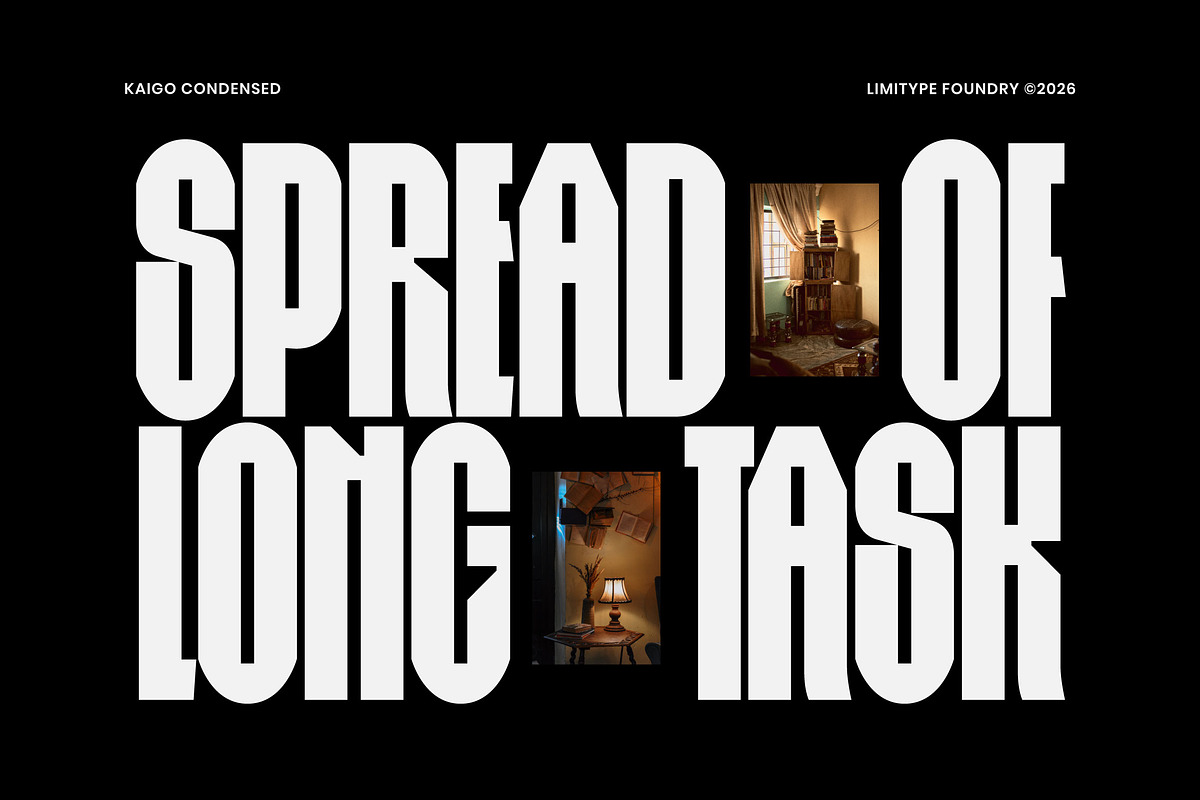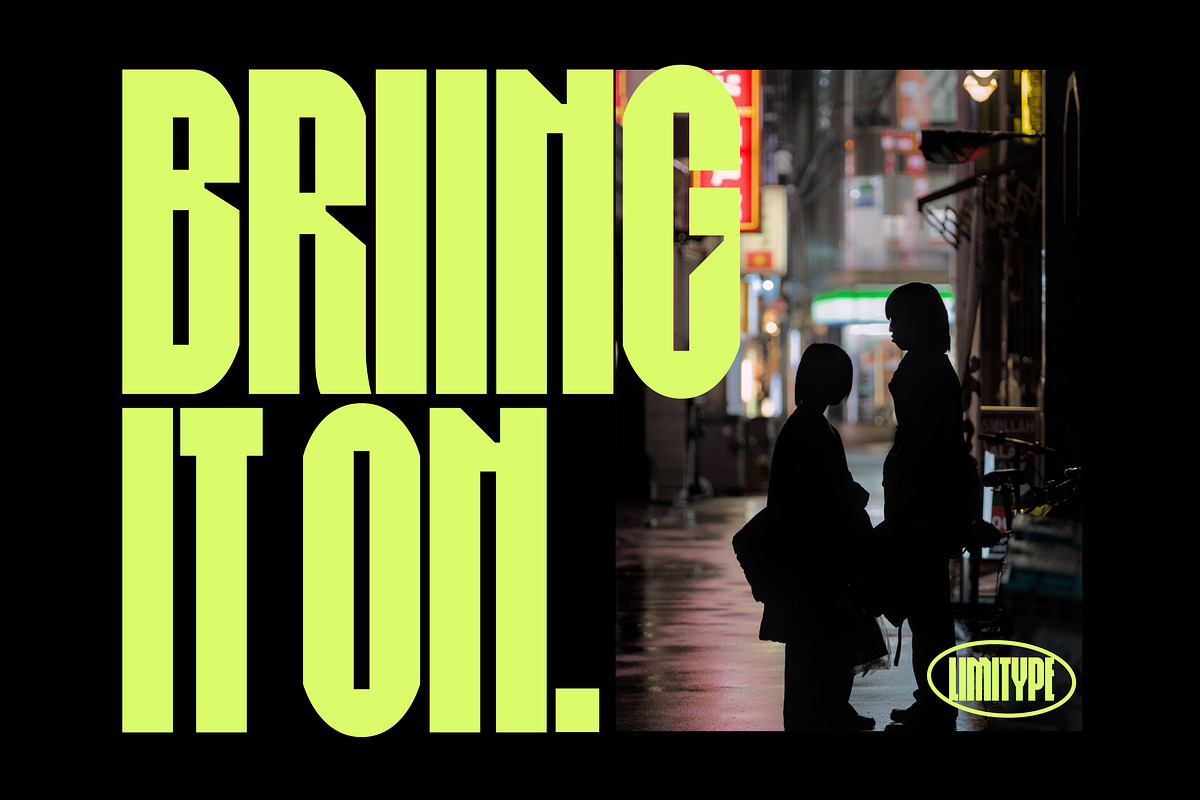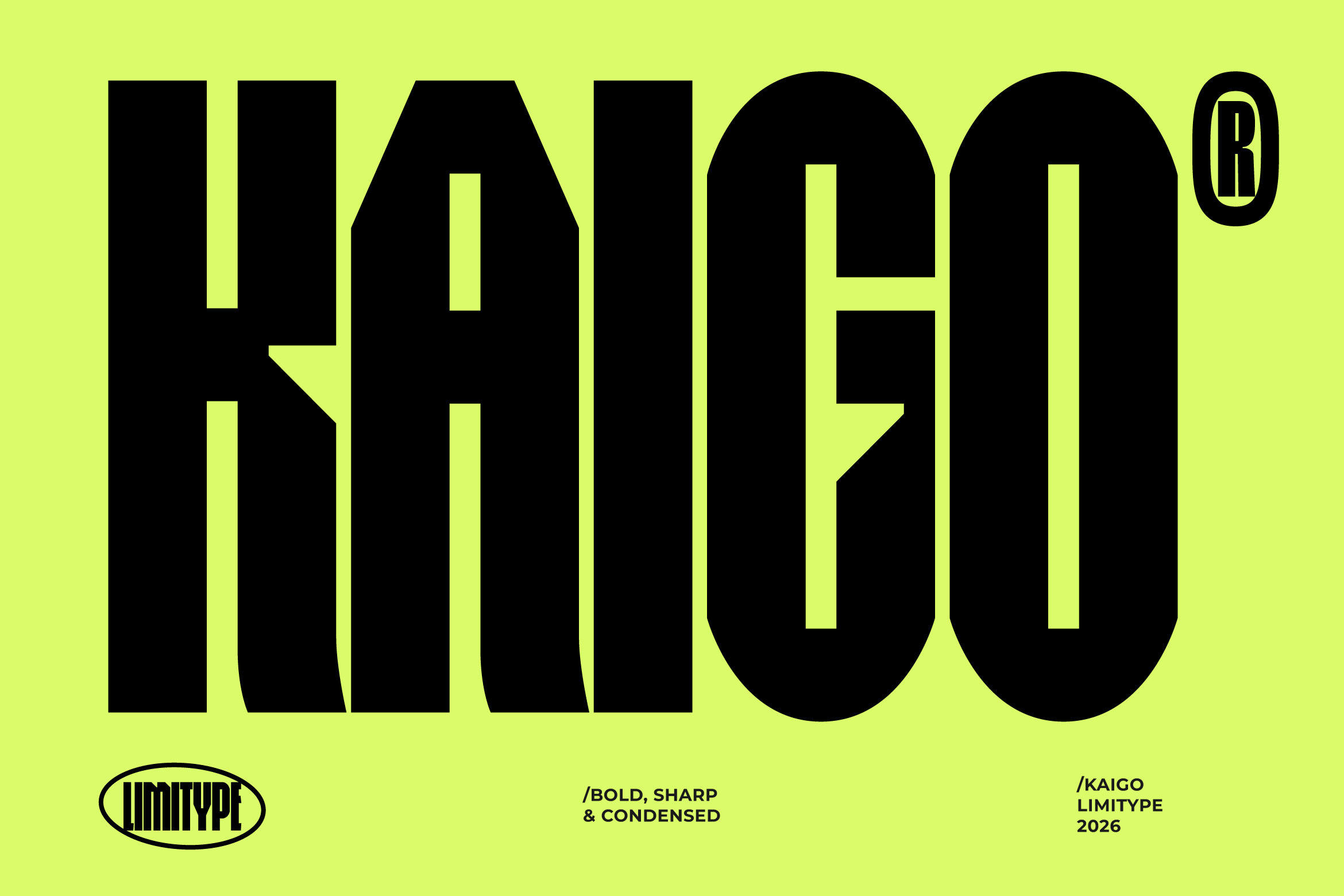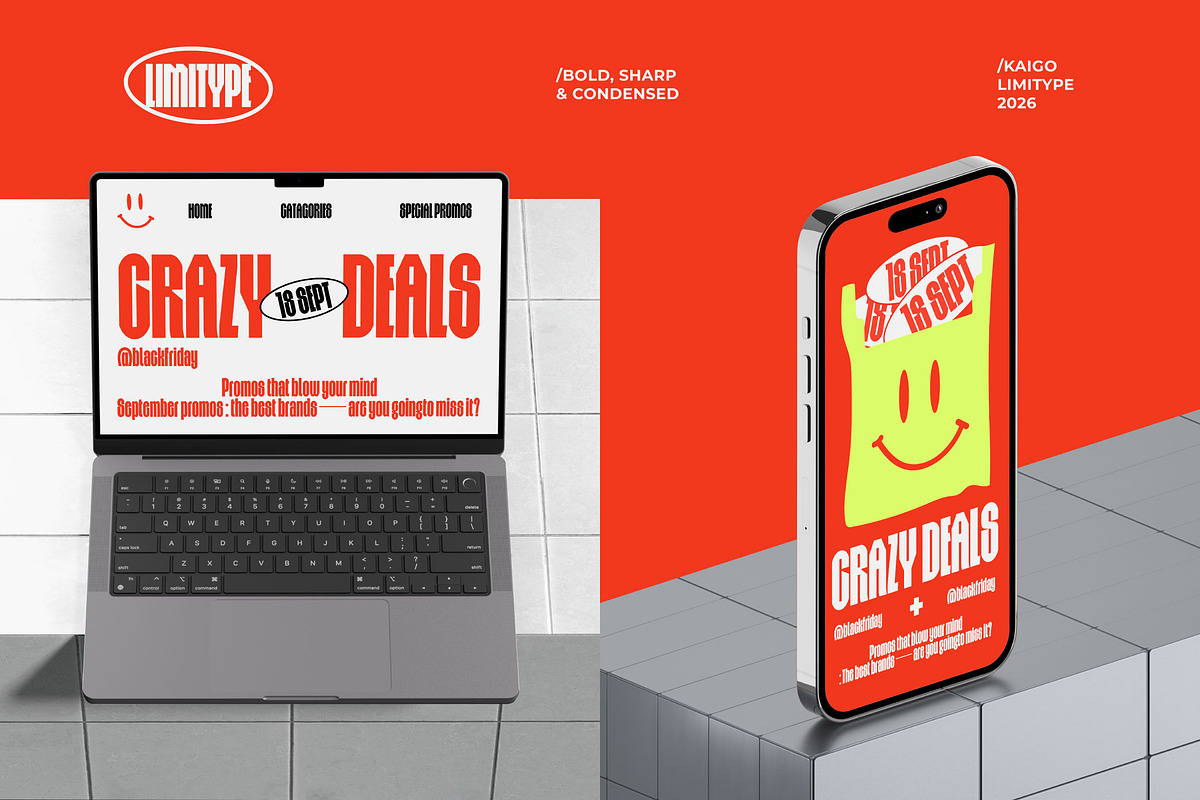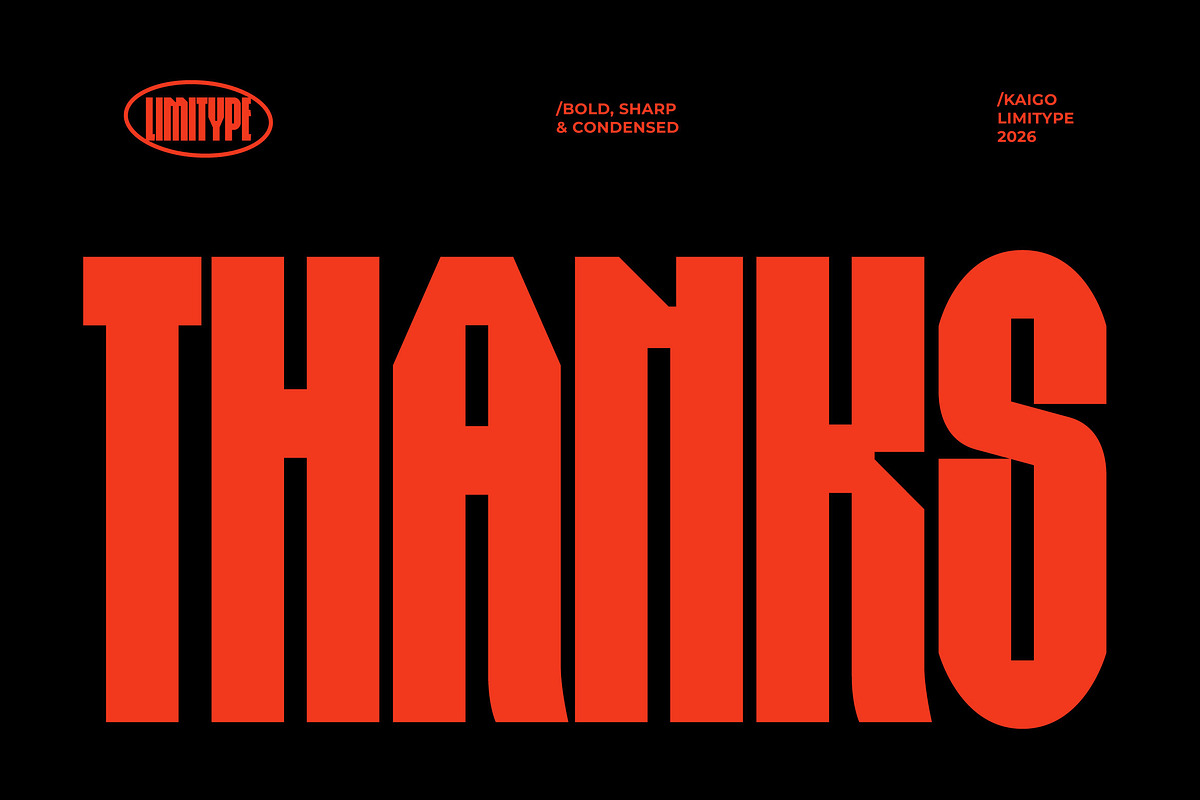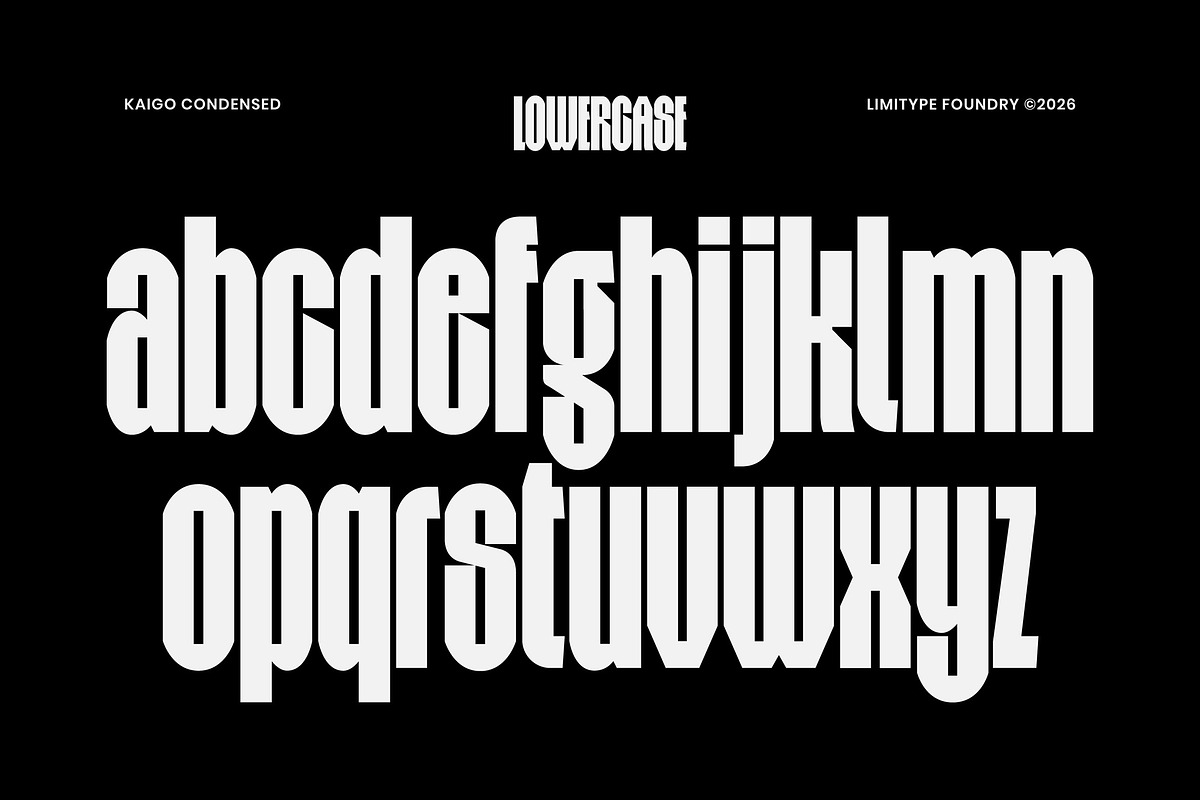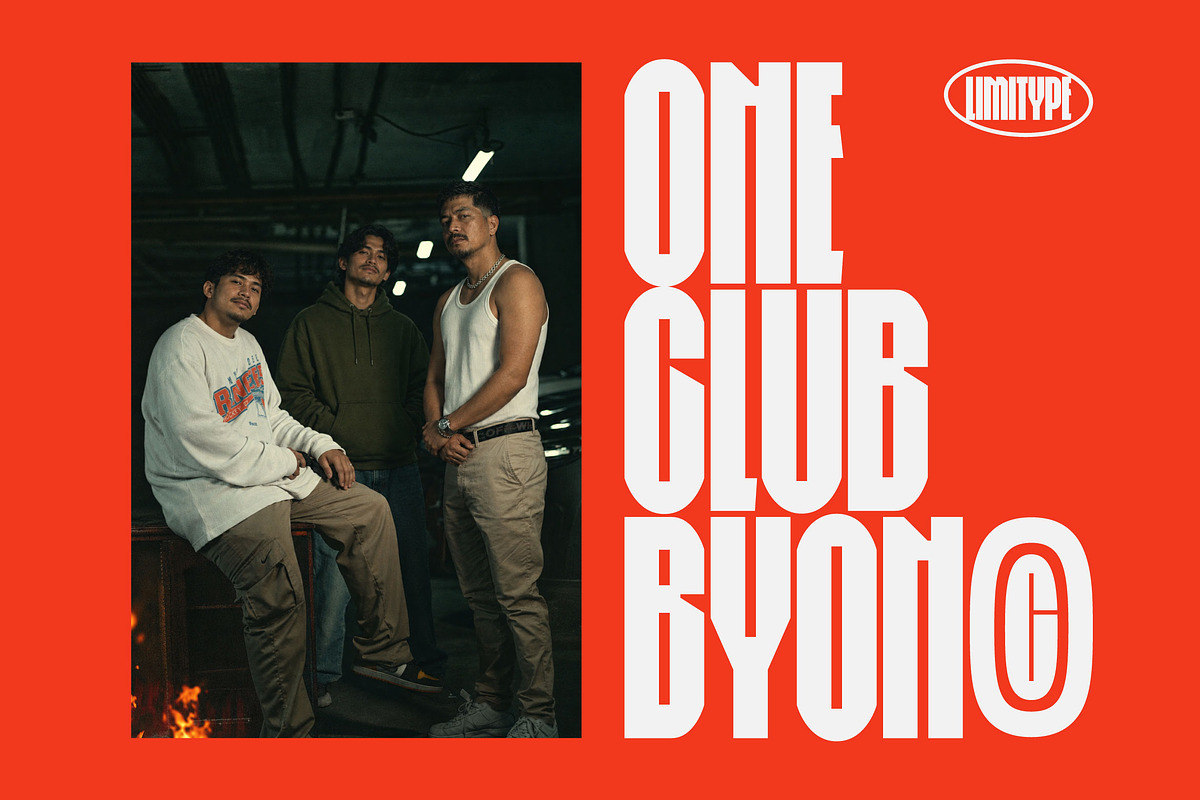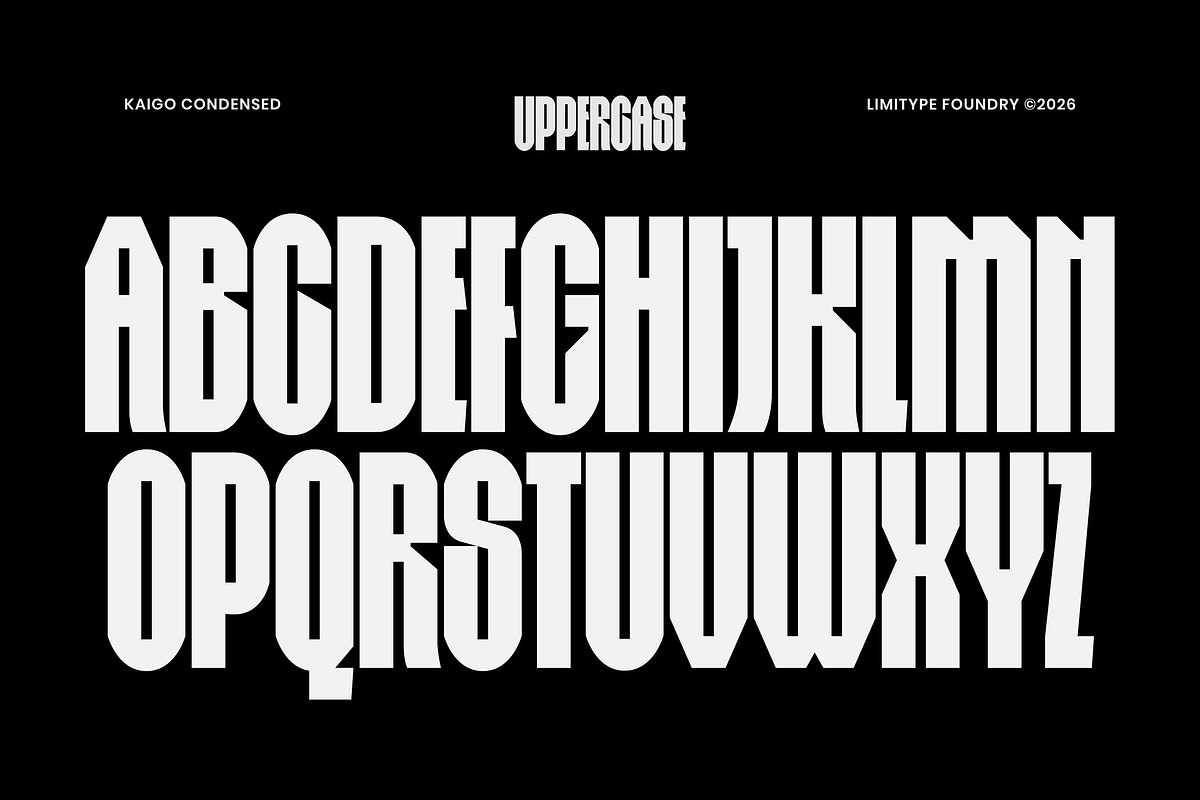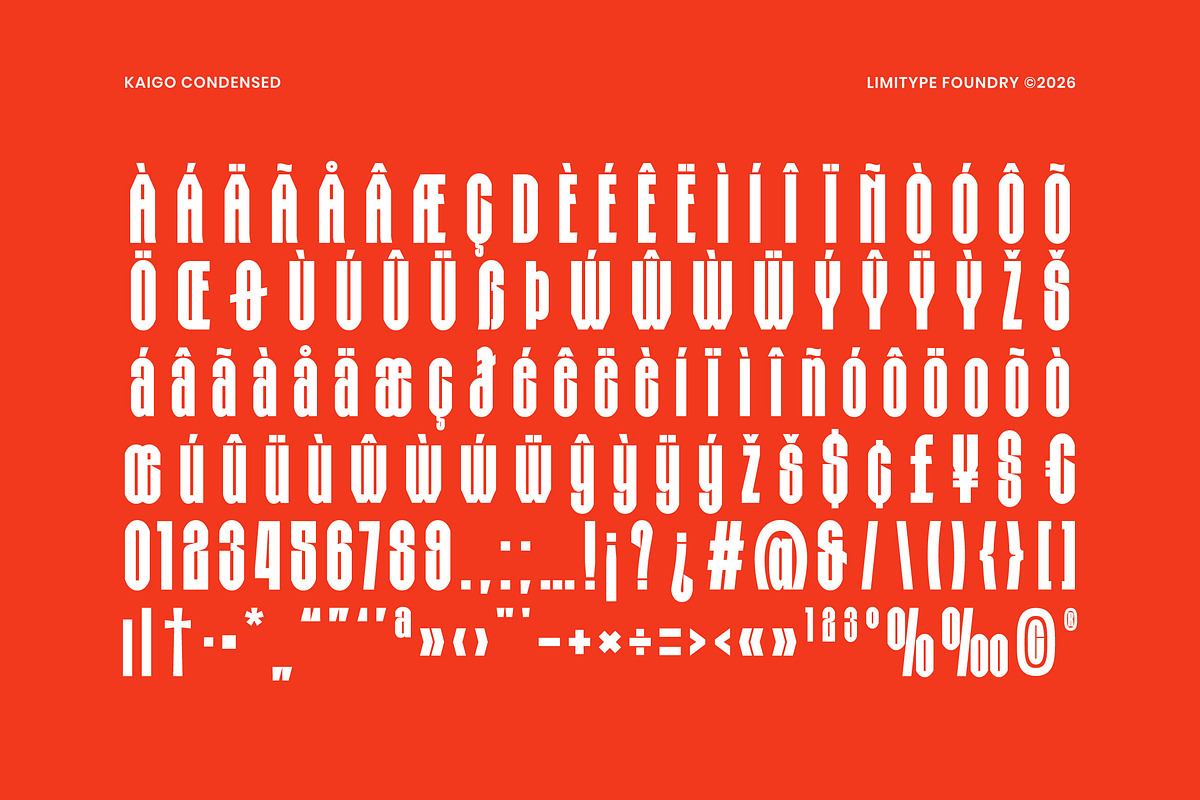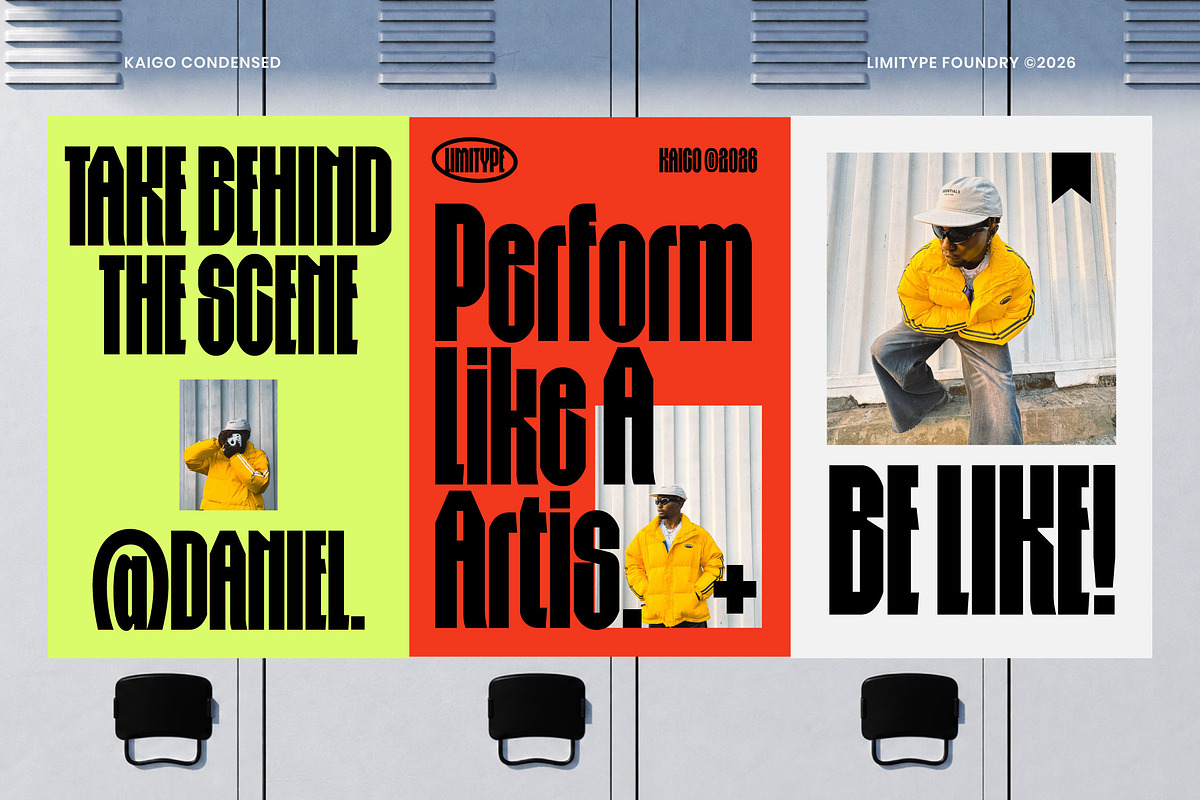
Kaigo - Bold Condensed Font
Kaigo is a bold condensed display font with extreme proportions and a strong geometric character. Its tall, tightly packed letterforms feature diagonal cuts, sharp angles, and distinctive cut in details, creating a sharp and distinctive typographic style. With its condensed structure and solid forms, Kaigo is ideal for posters, headlines, branding, editorial, packaging, and other display typography applications.